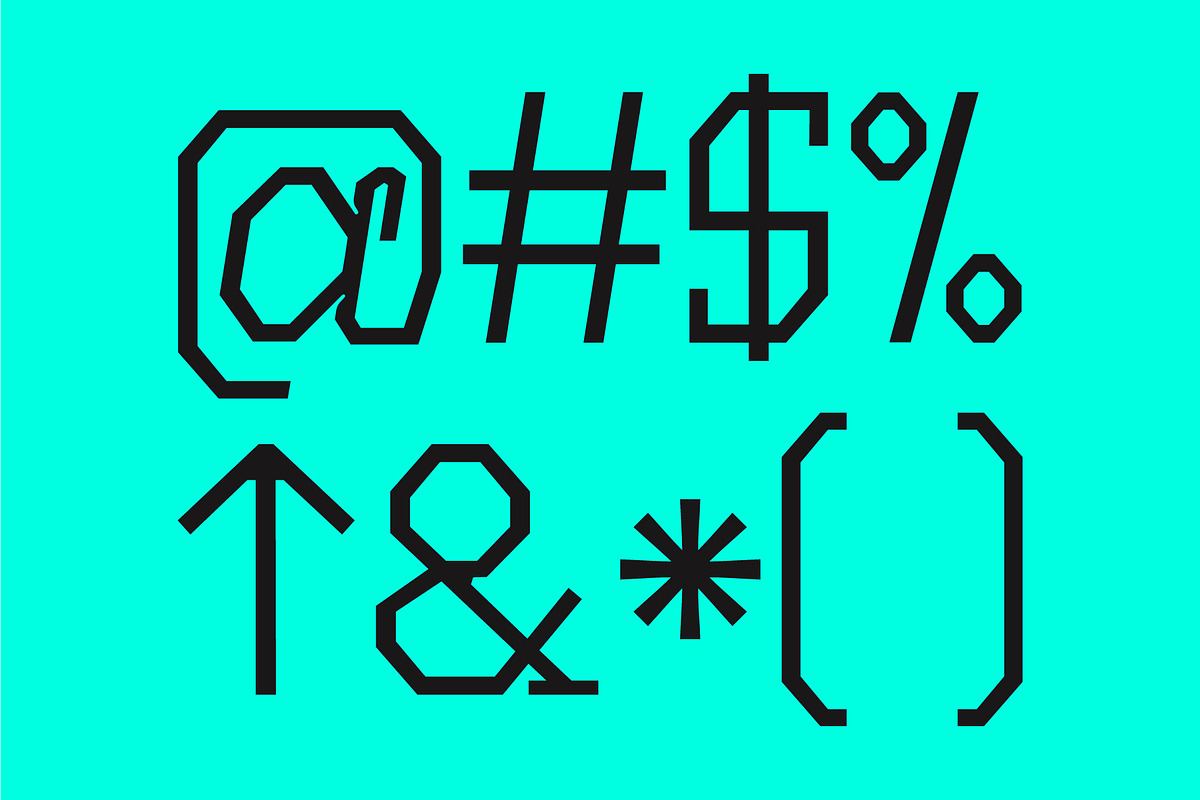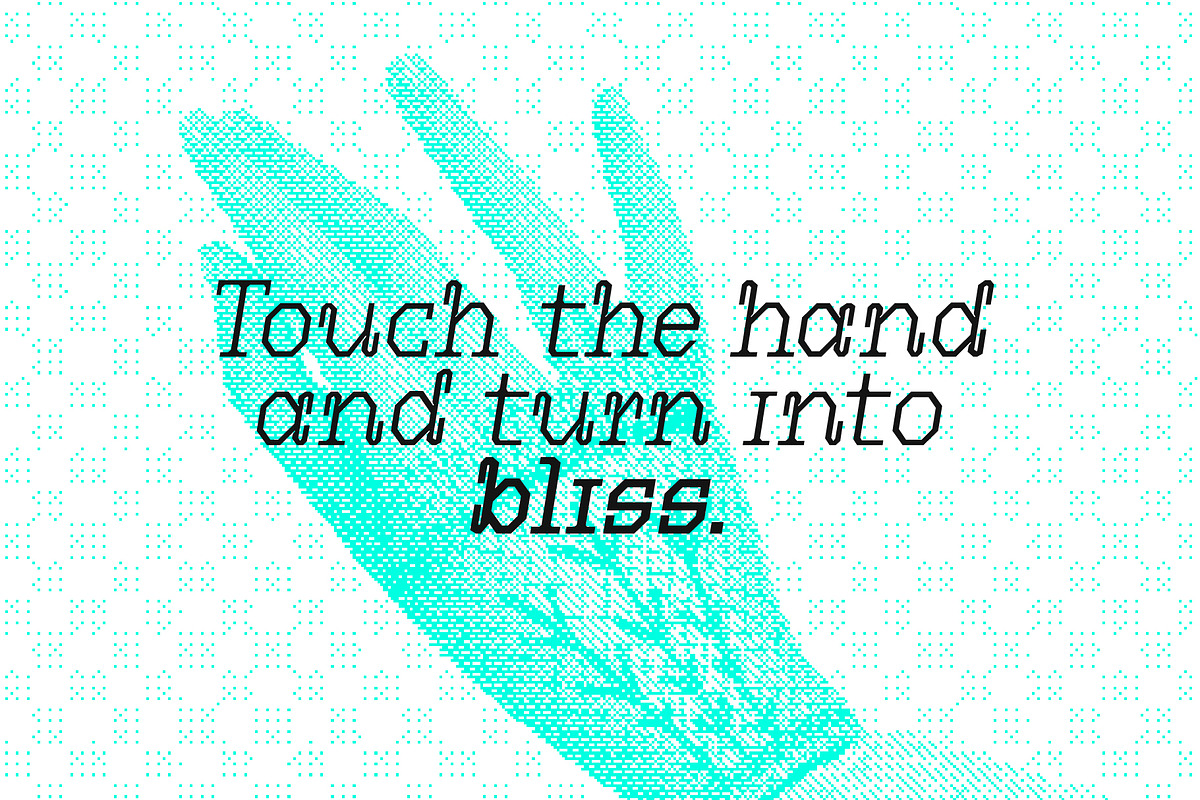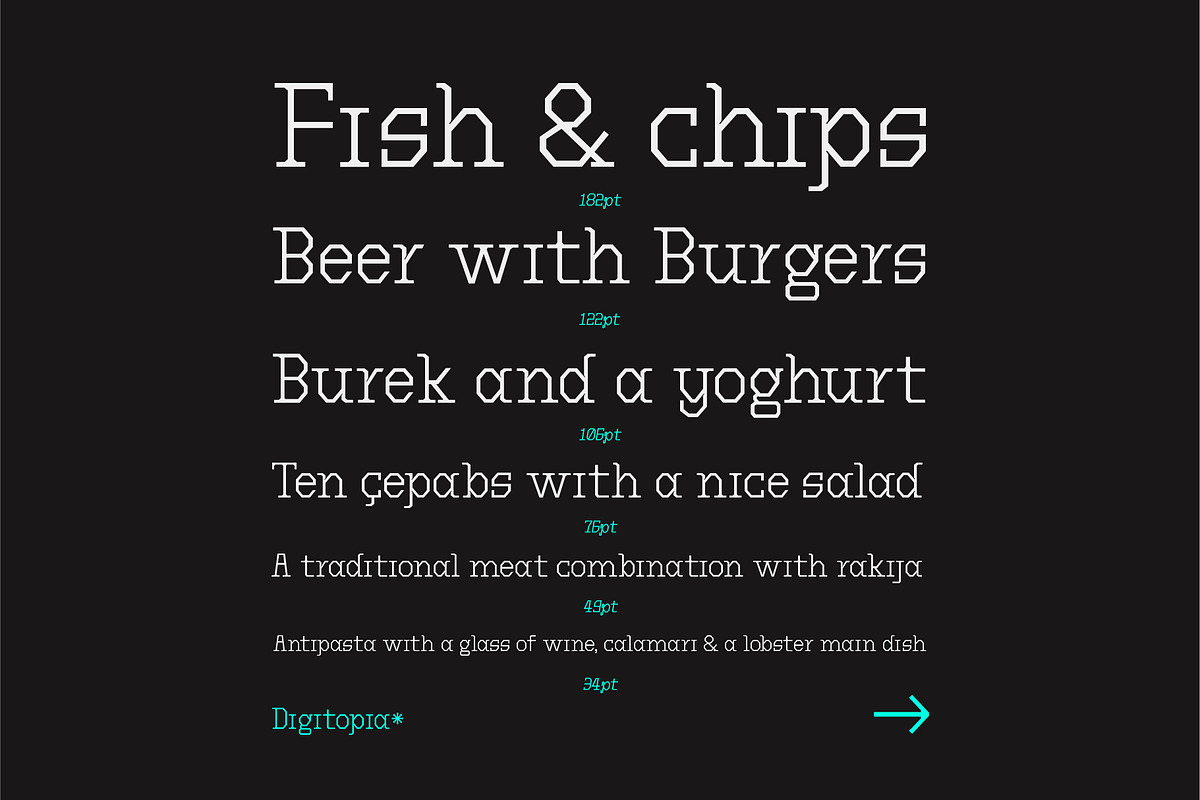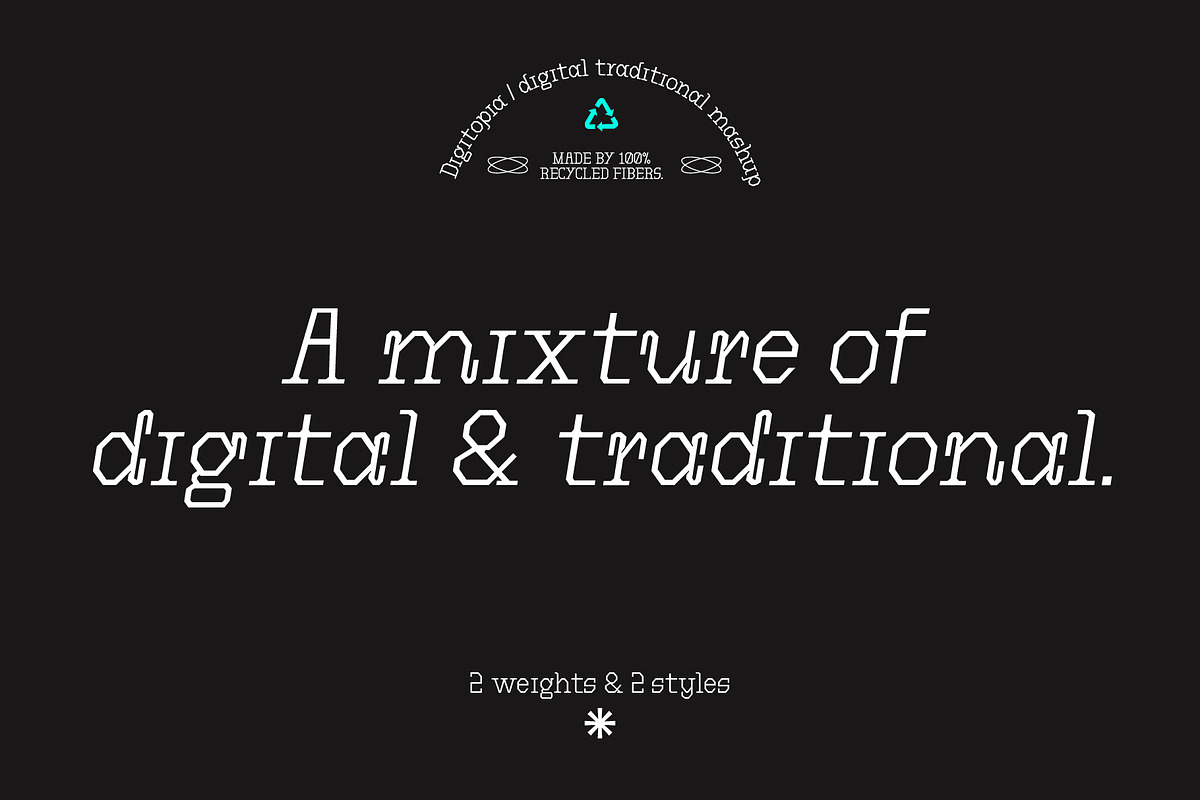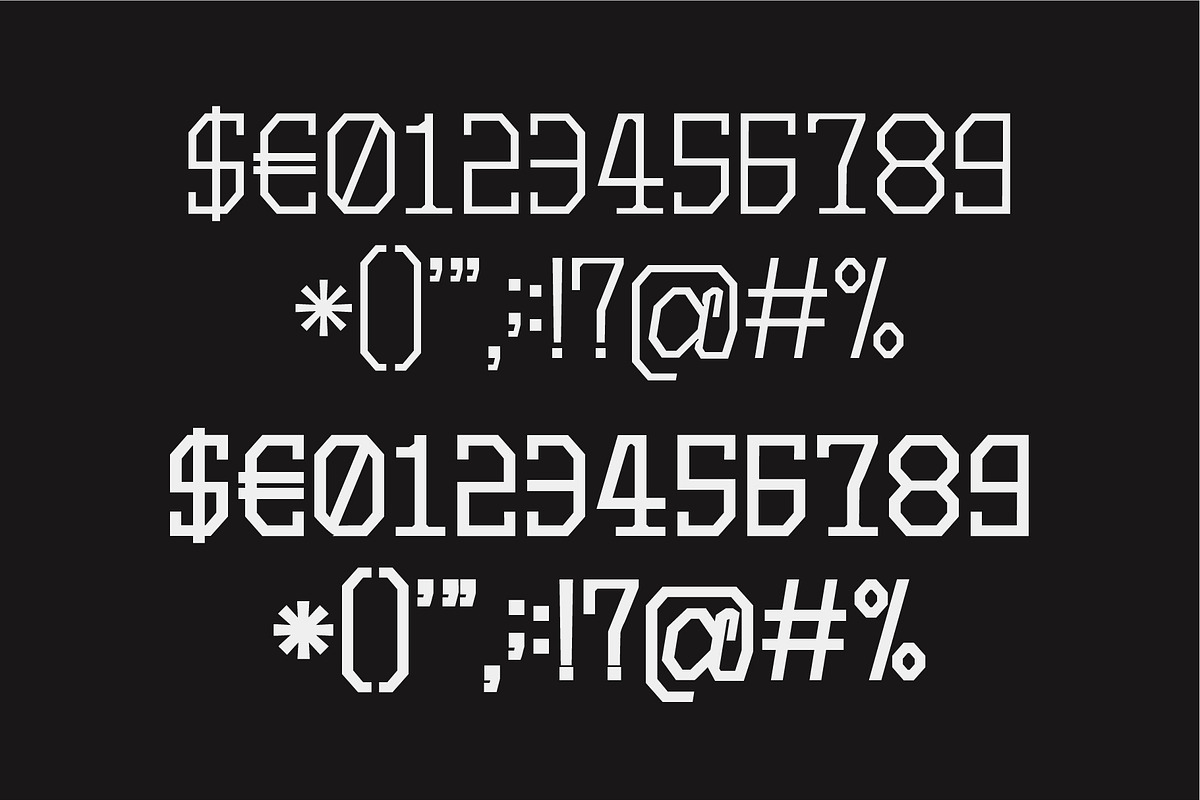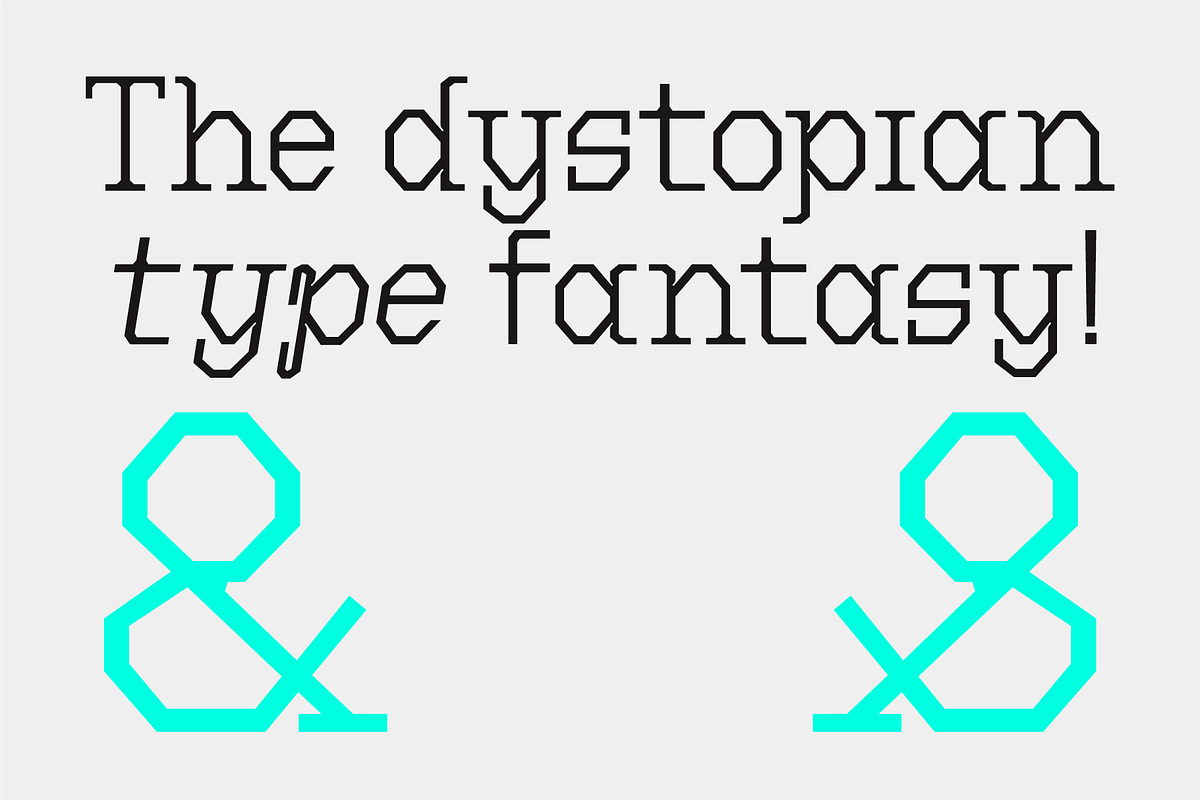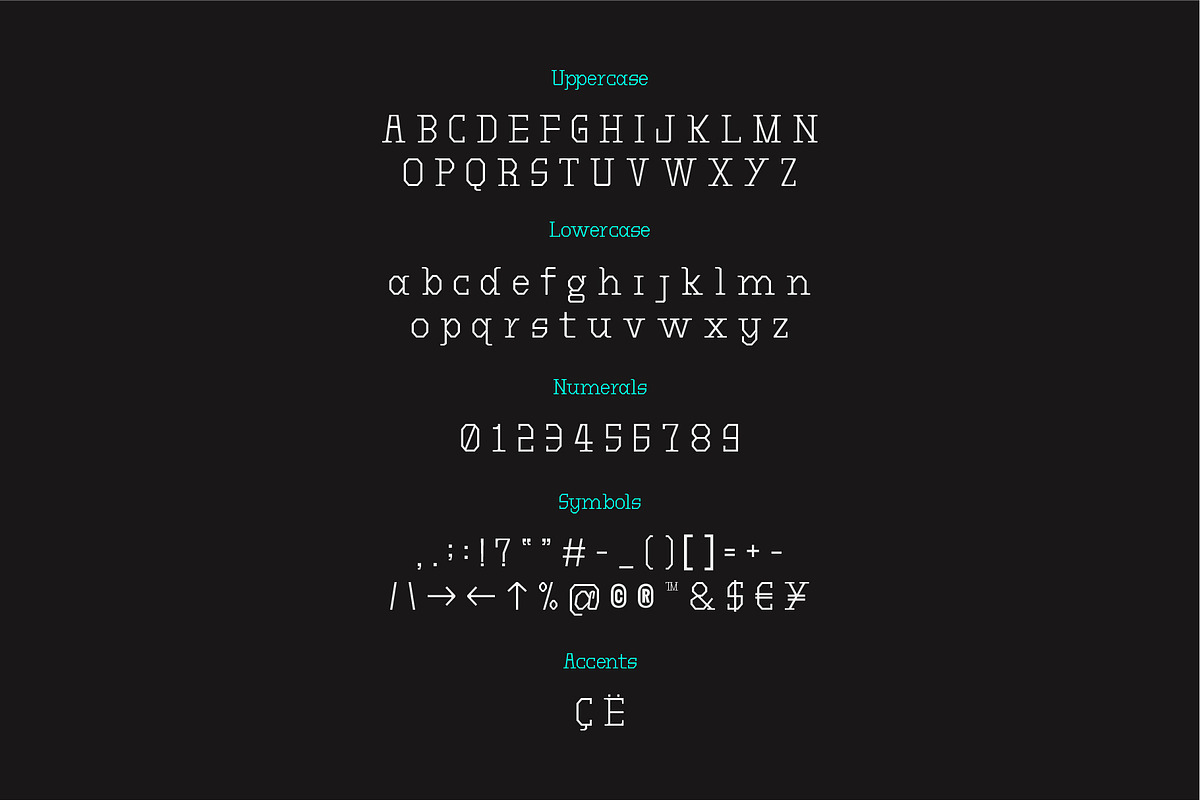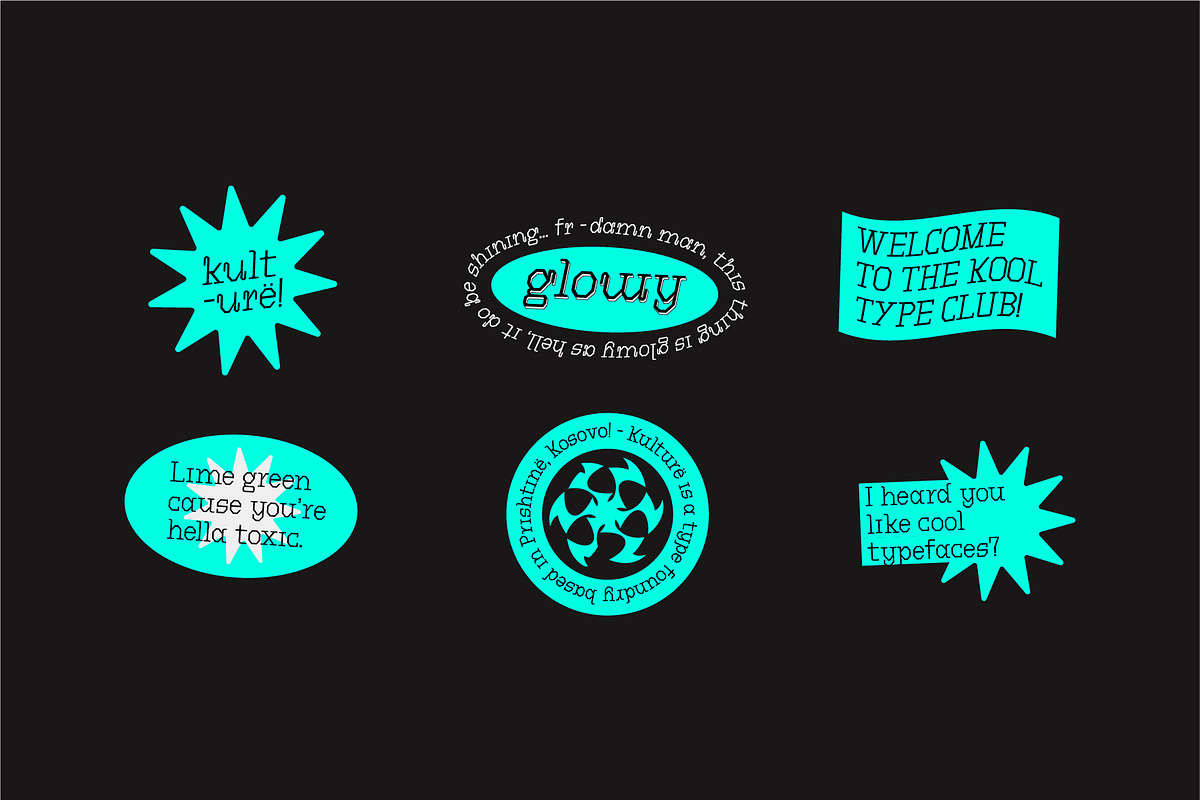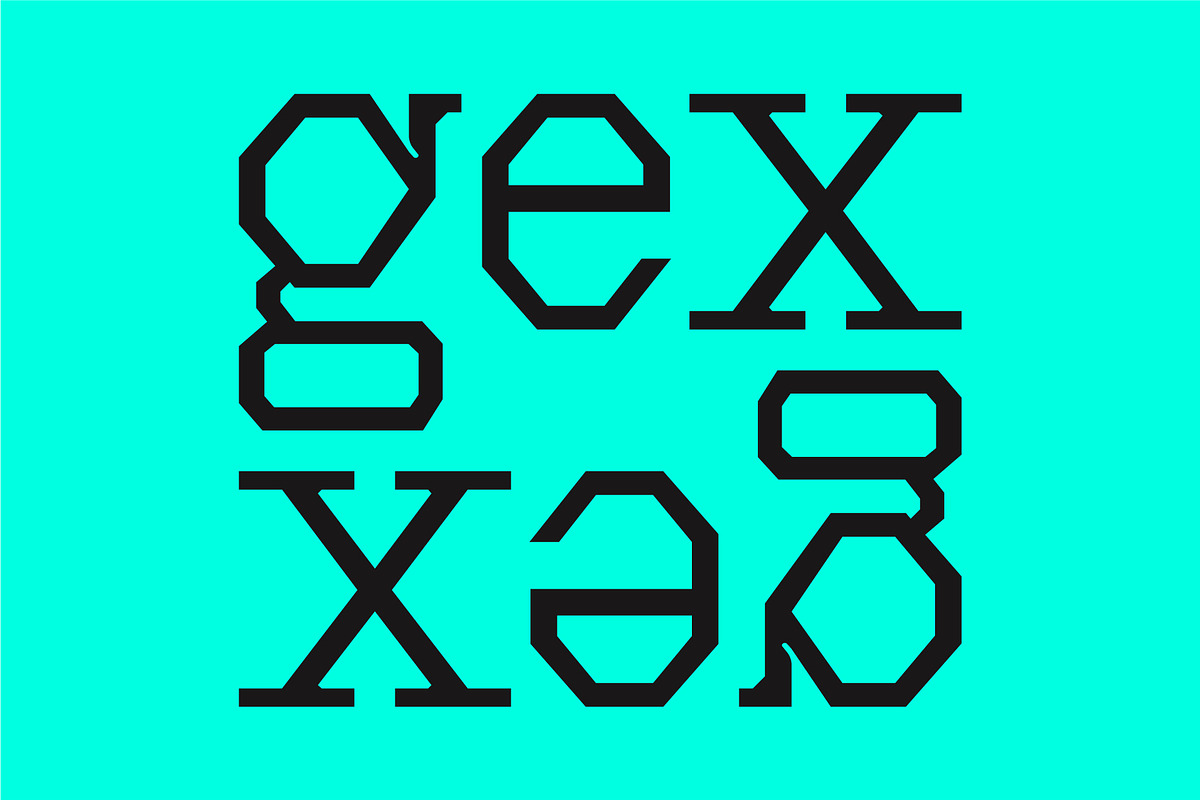
Digitopia - Experimental Type
Digitopia is a mashup of the traditional & digital types. A combination that is rarely seen, making it the perfect type. Some interesting curls in the italic form & a nice geometric feel to it. The digital-traditional mix!
Has got 2 weights & 2 styles. Please note that this type features only 2 accents (ç & ë).